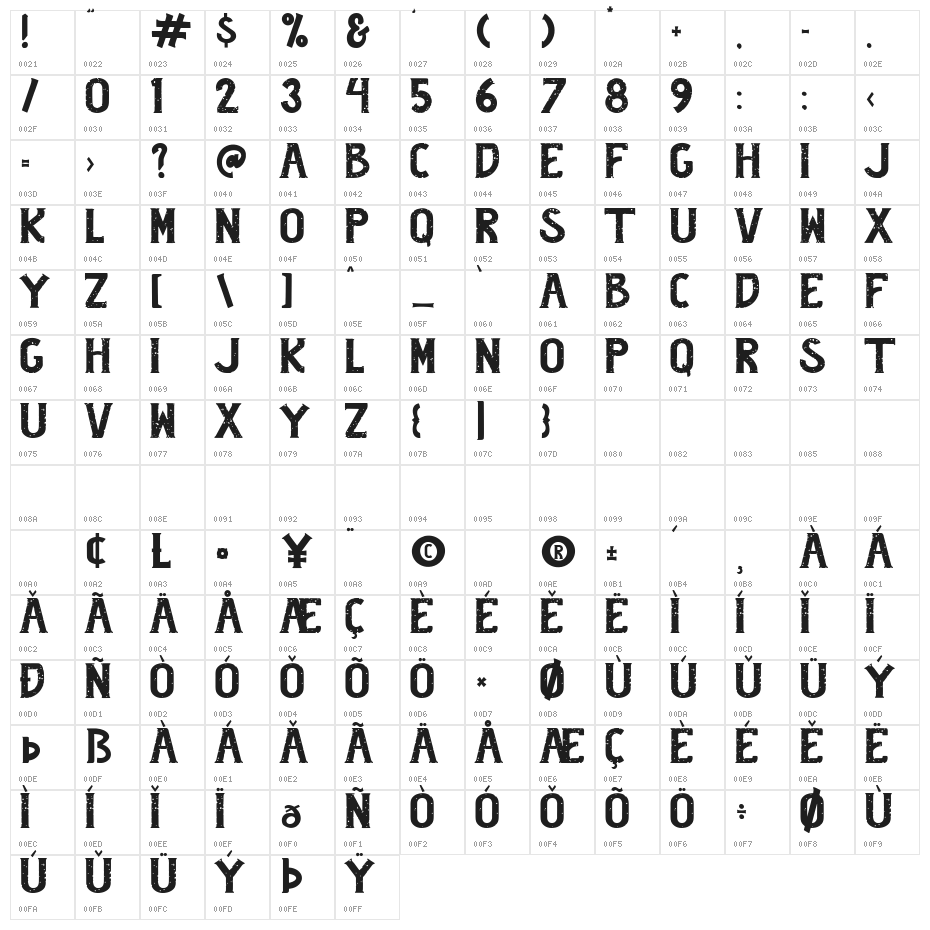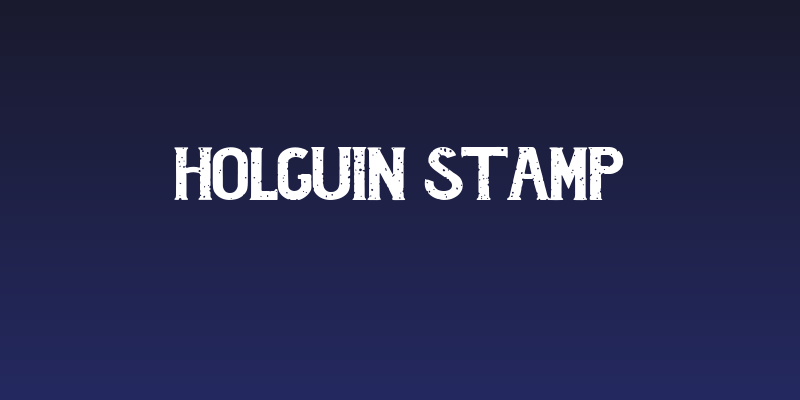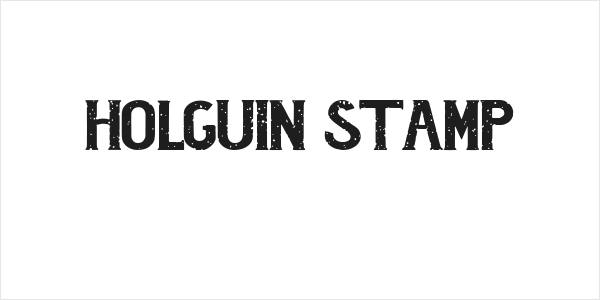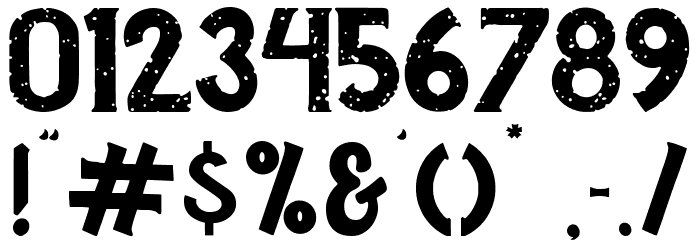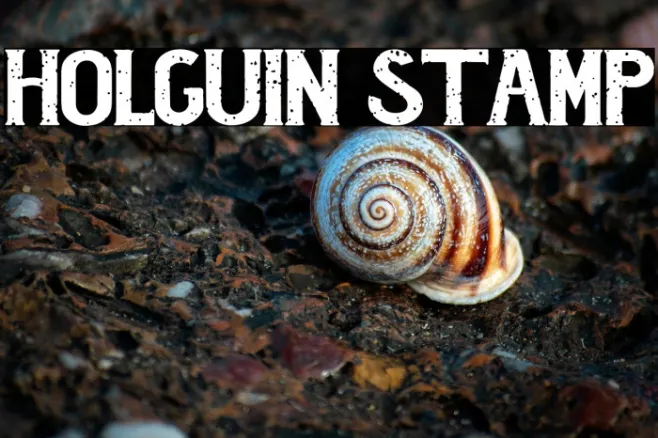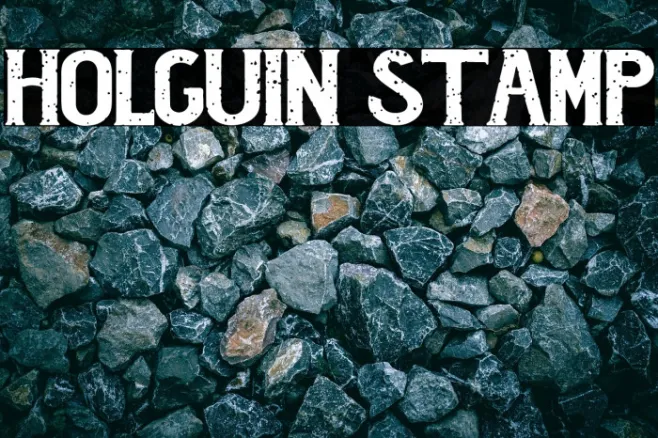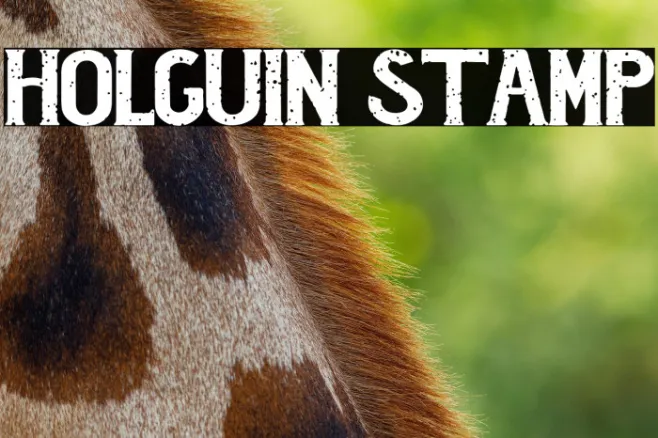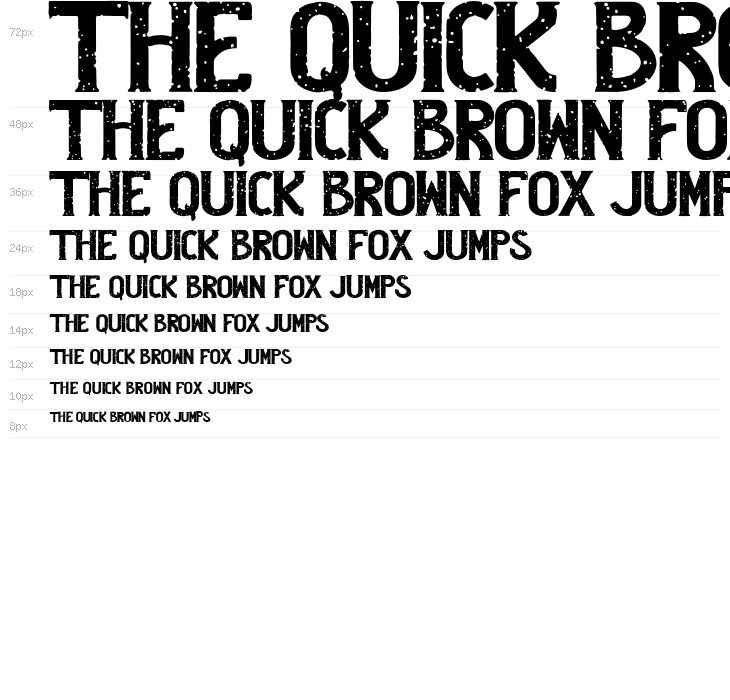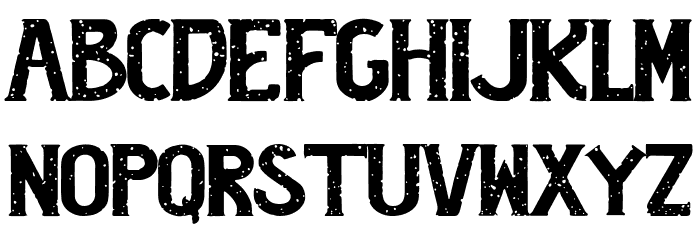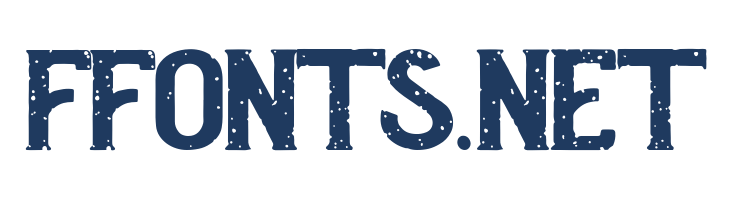
Holguin Stamp Font
This font features a bold, distressed style with a textured, stamp-like appearance. The characters are uppercase and lowercase, with numerals and a selection of special characters. Each letter has a rough, worn texture, giving it a vintage and rugged feel. The boldness of the font makes it stand out, while the irregular edges and speckled pattern add a unique character. This font is ideal for projects that require a strong, eye-catching display with a touch of nostalgia or a handcrafted look. The overall style is both decorative and impactful, making it suitable for various creative applications.
| Proposed Projects | Ideal for posters, branding, packaging, and any design needing a vintage or handcrafted touch. |